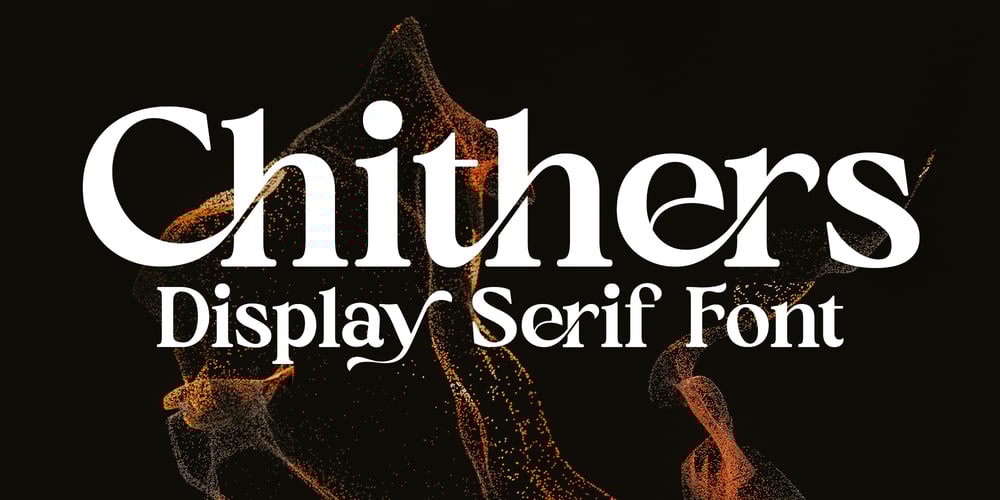
Chithers Font Family was designed by Arif Fadilah and published by Typicaltype. Chithers contains 1 styles and family package options. Introducing Chithers Serif Display Font — a symphony of timeless sophistication and modern allure. Elevate your visual identity with this exquisite typeface meticulously crafted to seamlessly blend tradition and contemporary design. Chithers exudes an understated elegance that captivates the eye, commanding attention with every stroke and curve. Perfectly suited for distinguished brands, editorial projects, and luxurious applications, Chithers Serif Display Font promises to infuse your creations with a touch of refined grace, making a lasting impression that transcends trends. Embrace the artistry of typography and let Chithers redefine the narrative of your visual expression.